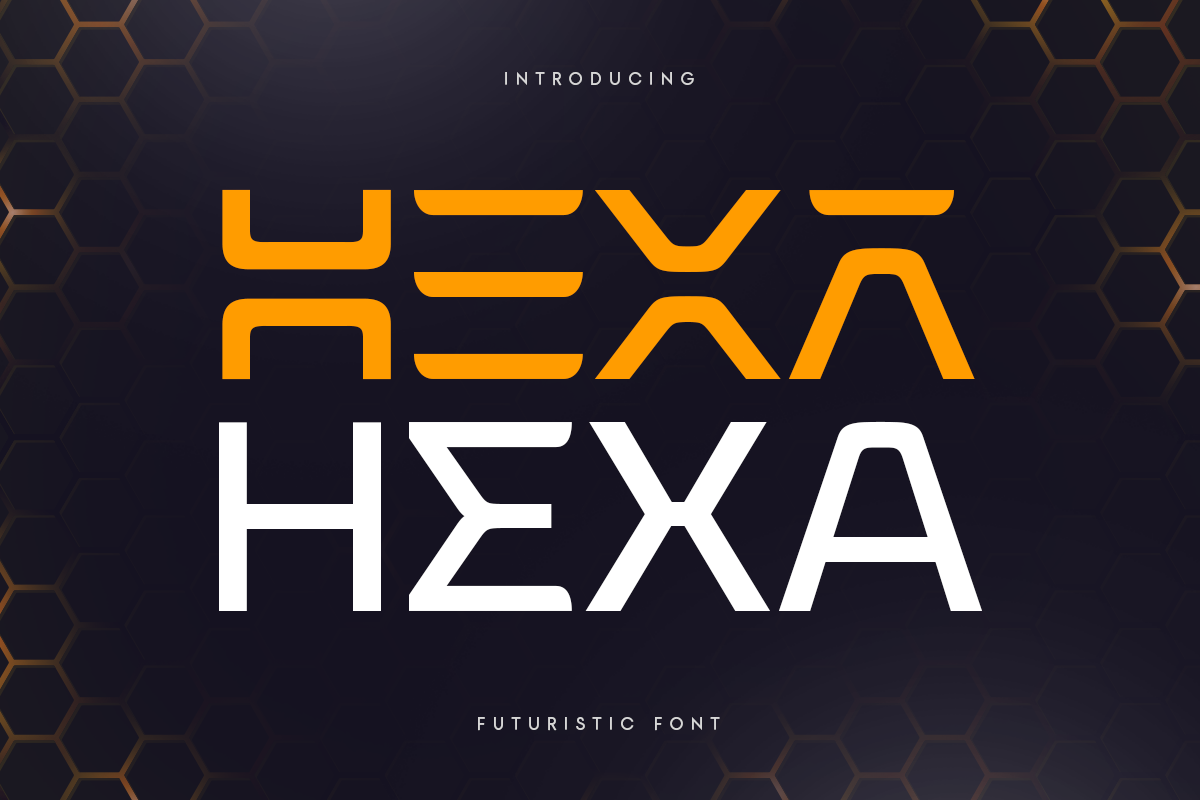
Hexa - Futuristic Font
Transform your tech projects with Hexa - the ultimate futuristic sci-fi font for modern digital design. Hexa delivers cutting-edge typography crafted specifically for sci-fi, modern technology, and standout design needs. With meticulously designed styles, this font brings a distinctly futuristic edge to your creative work. Perfect for cryptocurrency projects, technology brands, film titles, and sci-fi themed designs. Hexa's modern aesthetic and technological feel make it ideal for any project th...